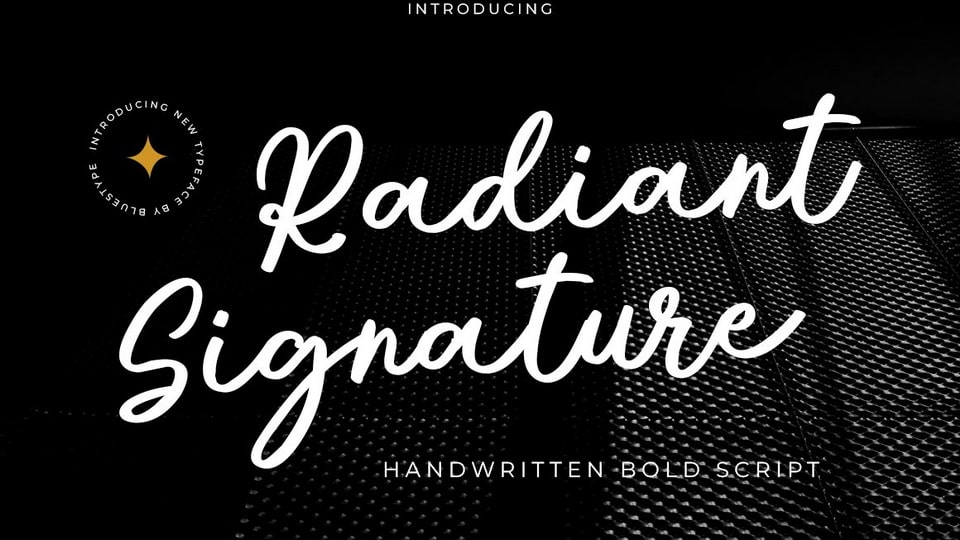
Download Radiant Signature font, a stunning script with a bold vibe. This font is suitable for use on photography, business cards, weddings, t-shirt designs, logos, magazines, quotes, fashion, watermarks, invitations, signatures.